A presentation font has to survive being projected on a screen 20 feet from the back row, which is a very different job from looking good on a printed page or a phone screen. Thin serifs and tightly-spaced letters that read fine on paper can turn into a gray smear from across a conference room — these ten were picked to hold up at a distance. If you’ve been searching for free fonts for presentations, these picks are curated with exactly that in mind.
We picked these for clarity at a distance, a wide enough weight range to separate a slide title from body text, and reliable rendering across PowerPoint, Keynote, and Google Slides (all three handle Google Fonts differently, and a few fonts render inconsistently between them). All ten are free under the SIL Open Font License.
| Inter | UI-optimized sans | Versatile slide body text |
| Montserrat | Geometric sans | Bold, confident slide titles |
| Merriweather Sans | Sans companion to a serif | Readable body text with warmth |
| Barlow Condensed | Condensed grotesque | Space-saving headers on busy slides |
| Public Sans | US federal design system sans | Neutral, corporate decks |
| Bitter | Slab serif | Confident headline text with more character |
| Karla | Grotesque, rounded corners | Approachable body text |
| Archivo | Grotesque, huge weight range | Flexible hierarchy across a whole deck |
| Fraunces | Soft serif with character | Creative or narrative-driven pitch decks |
| IBM Plex Mono | Monospace | Data, code, and stats slides |
Inter
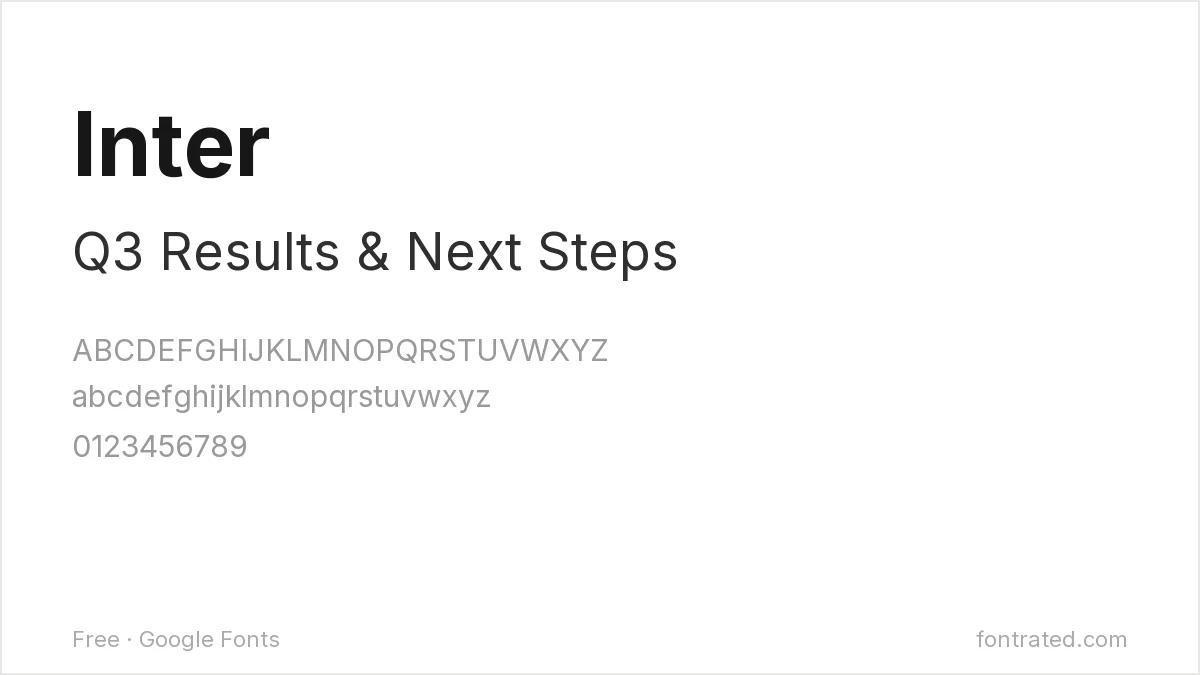
Designed specifically for screens and interfaces, Inter has a tall x-height and open counters that keep it legible even set small on a dense slide — the safest all-purpose body font on this list.
Montserrat
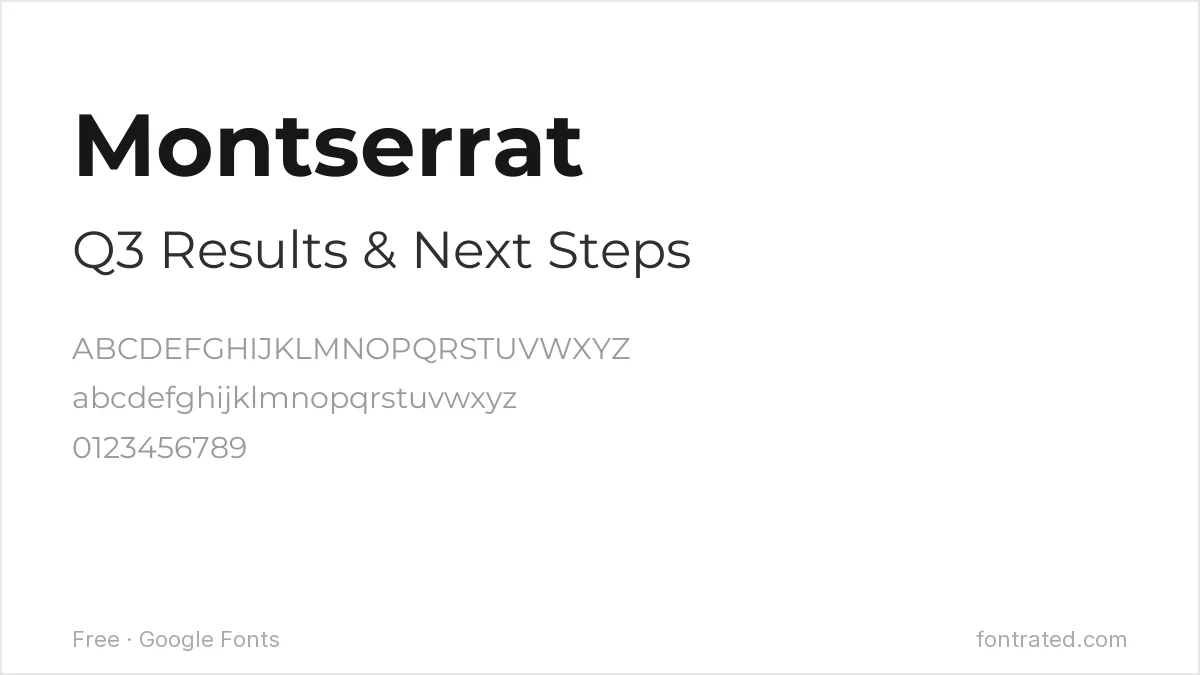
Montserrat’s geometric confidence makes it a strong choice for slide titles specifically — set it bold at 36pt+ and it reads clearly from the back of most rooms without shouting.
Merriweather Sans
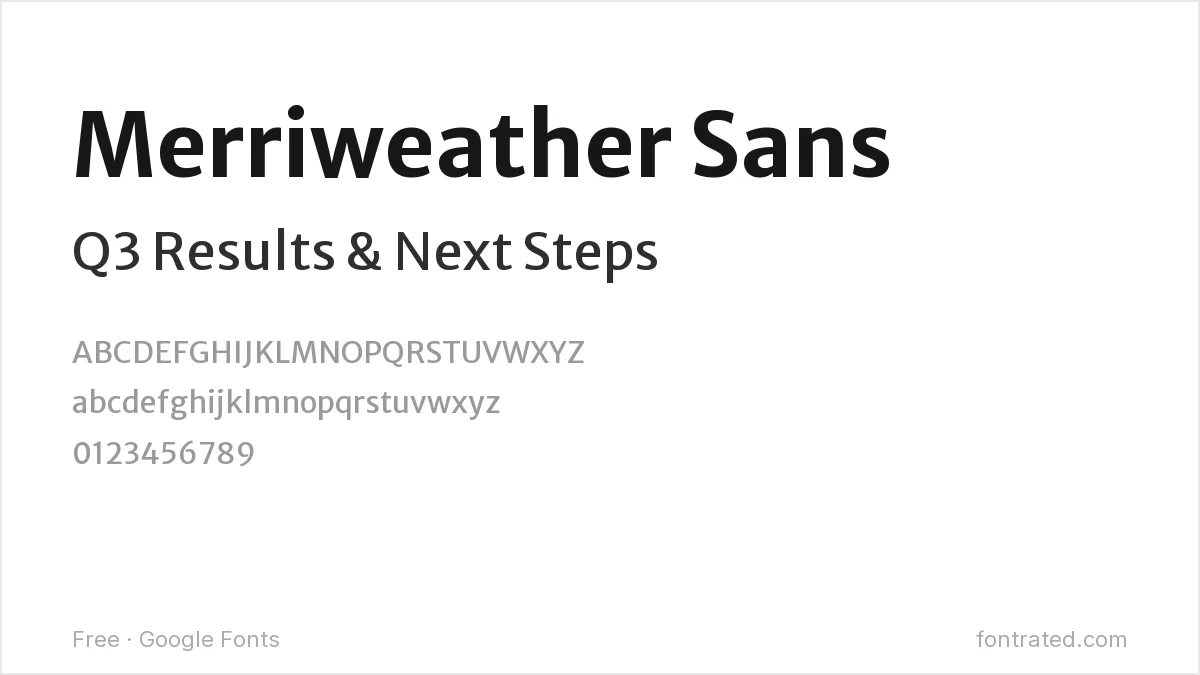
Built as the sans-serif sibling to the serif Merriweather, this version keeps that font’s screen-reading optimization while fitting more naturally alongside a serif headline if you want to mix the two.
Barlow Condensed
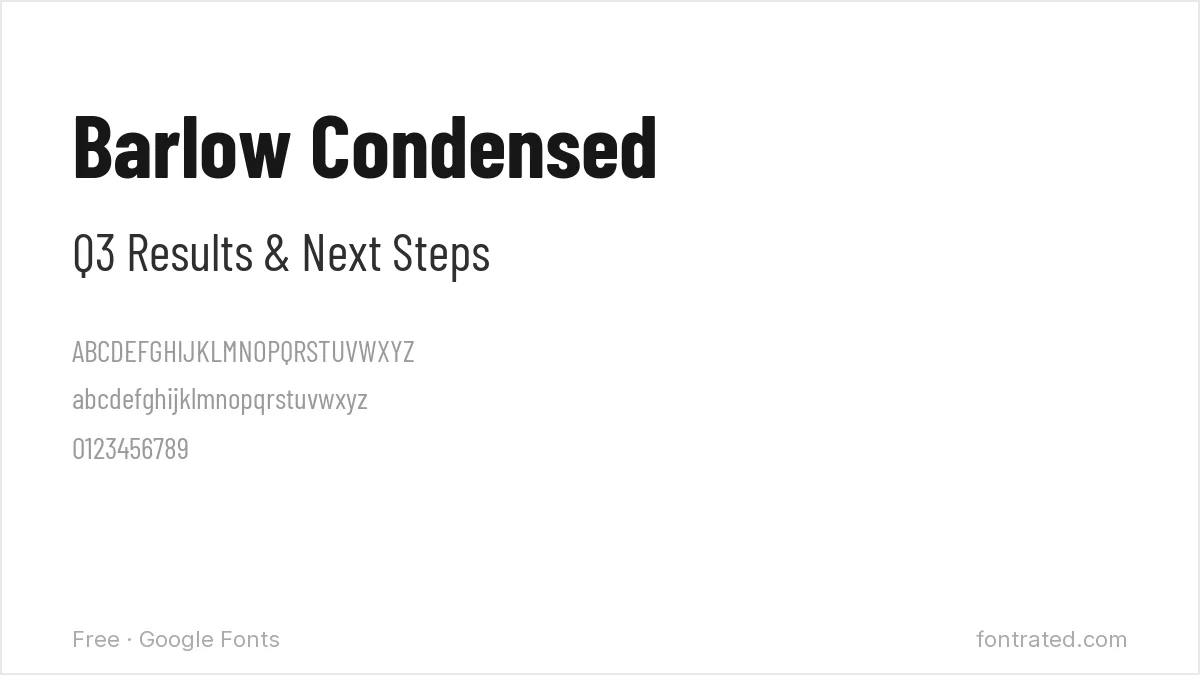
When a slide title runs long and a regular-width font would wrap awkwardly, Barlow Condensed’s narrower letterforms buy back horizontal space without needing to shrink the point size.
Public Sans
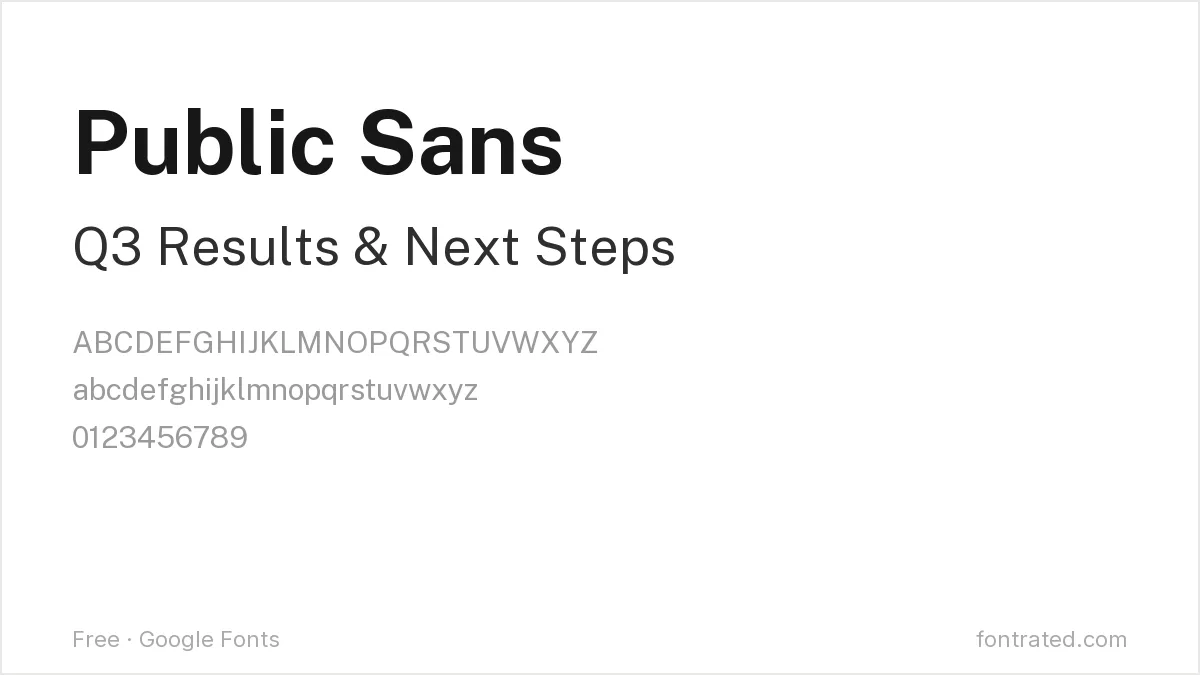
Originally developed for U.S. government digital services, Public Sans was built to be as neutral and unbranded as possible — a deliberately safe choice for a deck going to a broad, formal audience.
Bitter
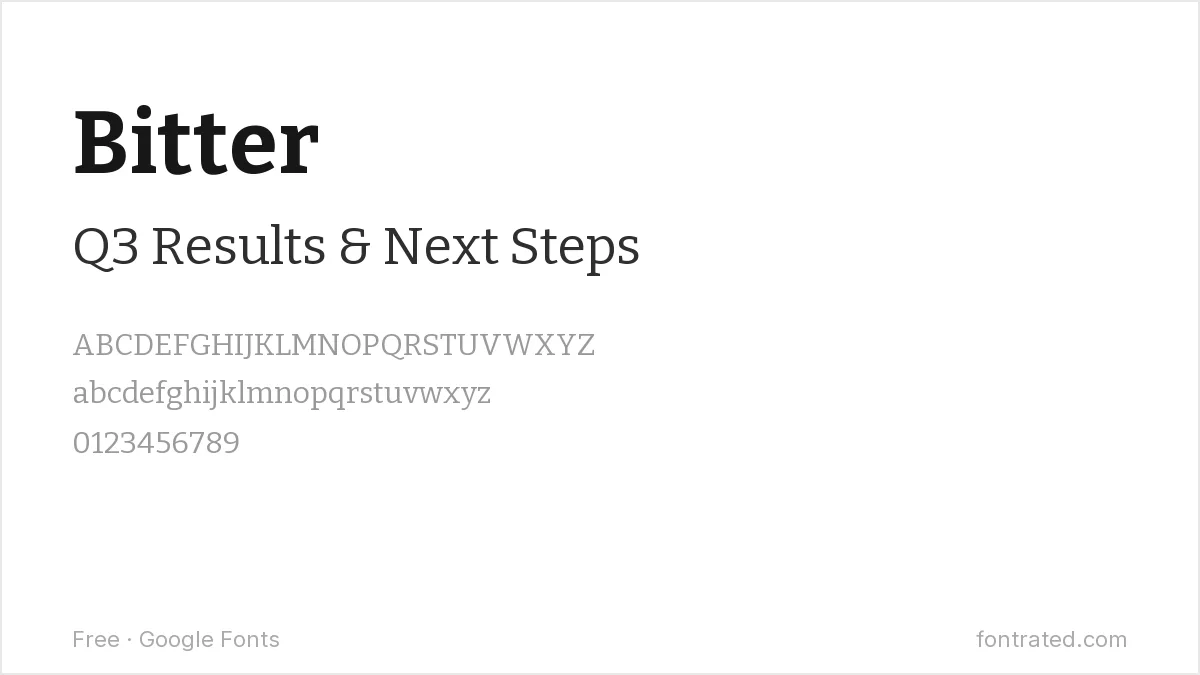
A slab serif with sturdy, squared-off strokes, Bitter gives a headline more visual weight than a thin serif would while still reading clearly from a distance — a good alternative to yet another bold sans-serif title.
Karla
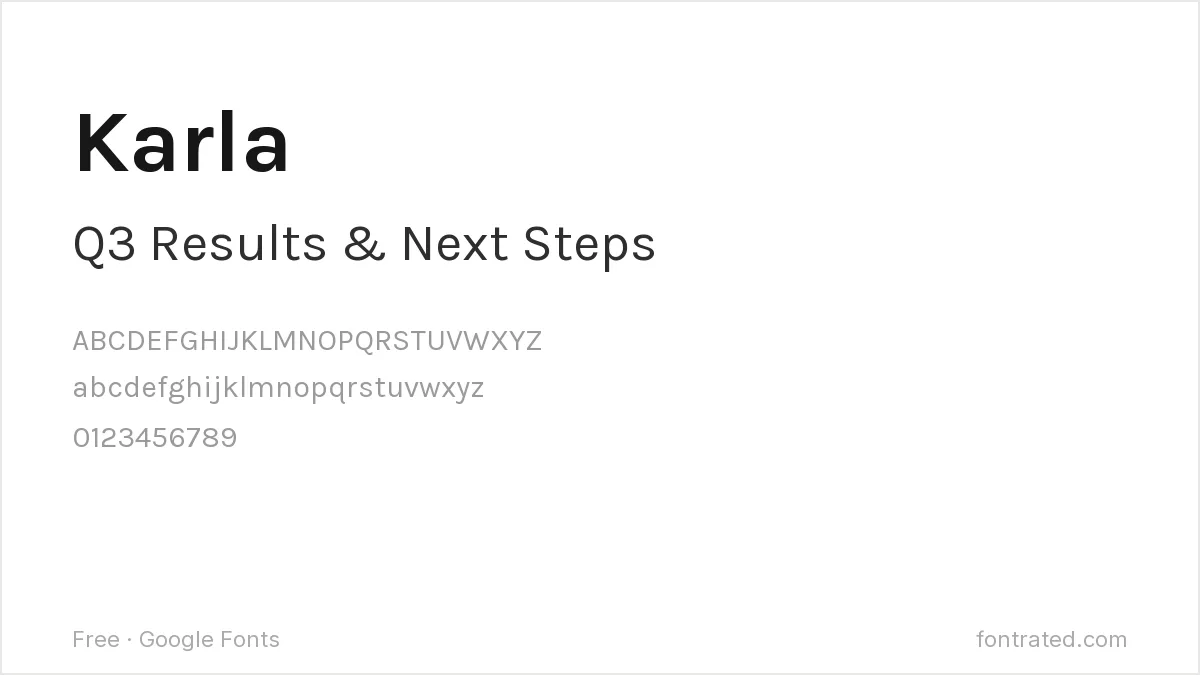
Karla’s slightly rounded corners keep it from feeling cold in body-heavy slides, without adding enough personality to distract from the content.
Archivo
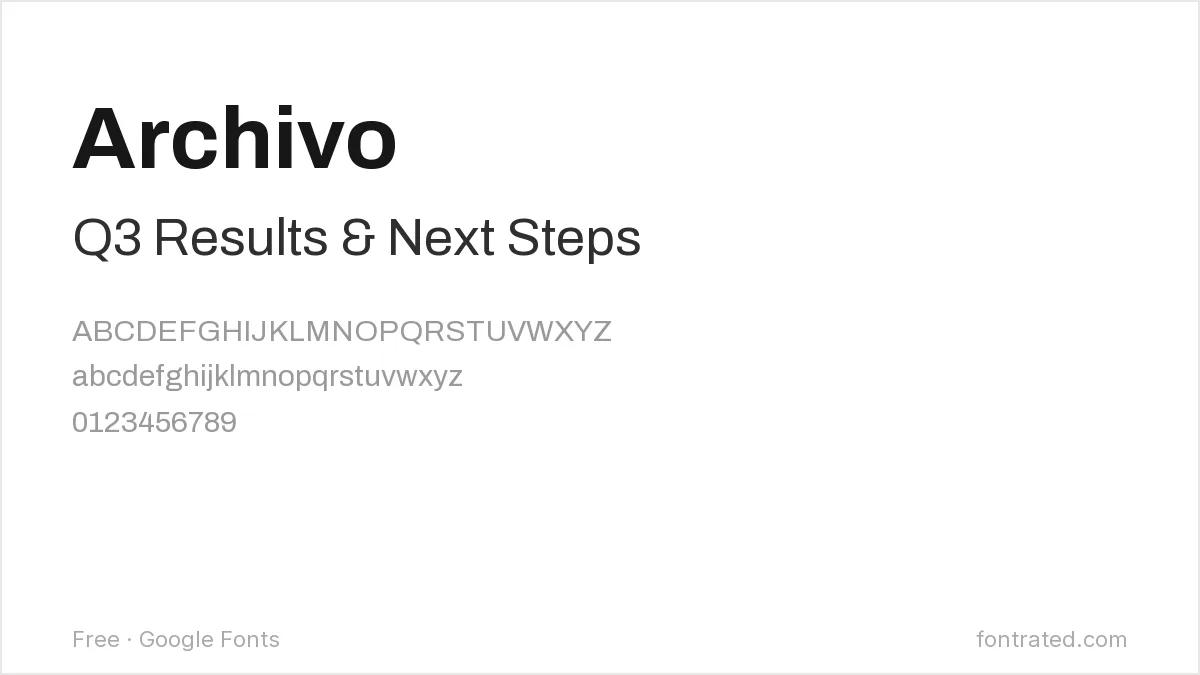
Archivo’s range (nine weights, plus condensed and expanded widths) makes it possible to build titles, subheadings, and body text from one consistent family instead of mixing fonts.
Fraunces
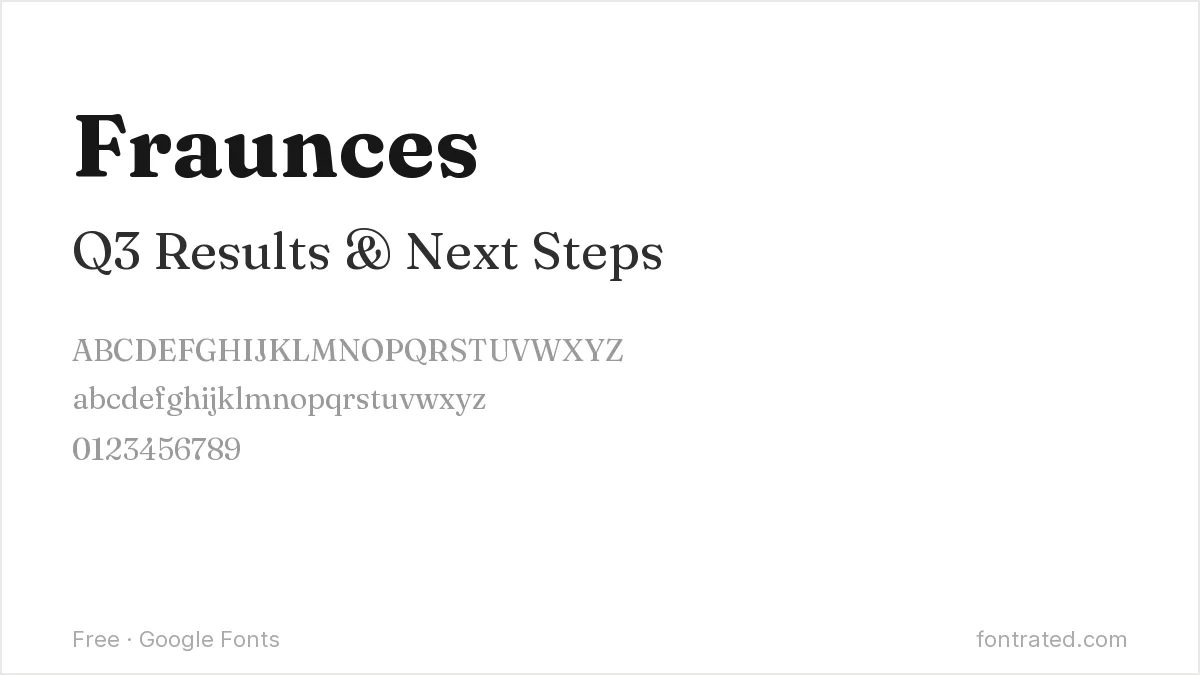
A serif with soft, almost hand-finished curves, Fraunces works well for pitch decks or narrative presentations that want to feel less like a corporate template and more like a considered story.
IBM Plex Mono
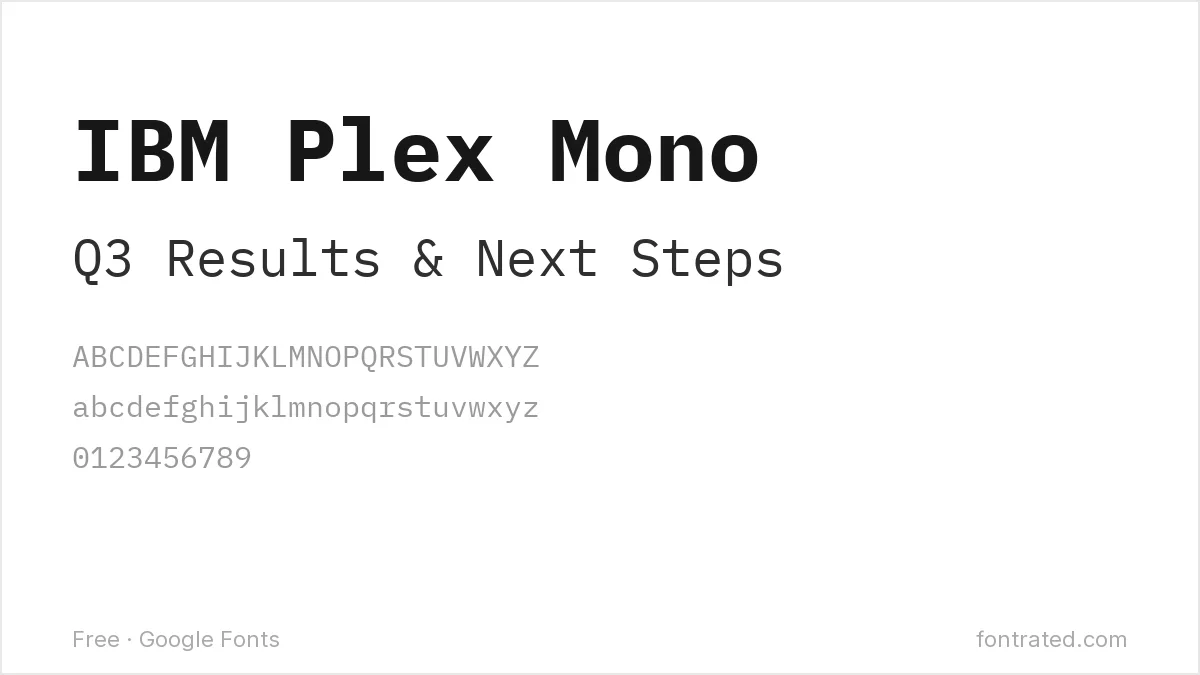
When a slide is showing a statistic, a code snippet, or a data table, switching briefly to a monospace like IBM Plex Mono signals “this is data” at a glance — use it as an accent, not your main body font.
Which one should you actually pick? Inter for body text and Montserrat for titles is a safe, tested pairing for almost any deck. Swap in Bitter or Fraunces for titles specifically when the presentation is more narrative than corporate.